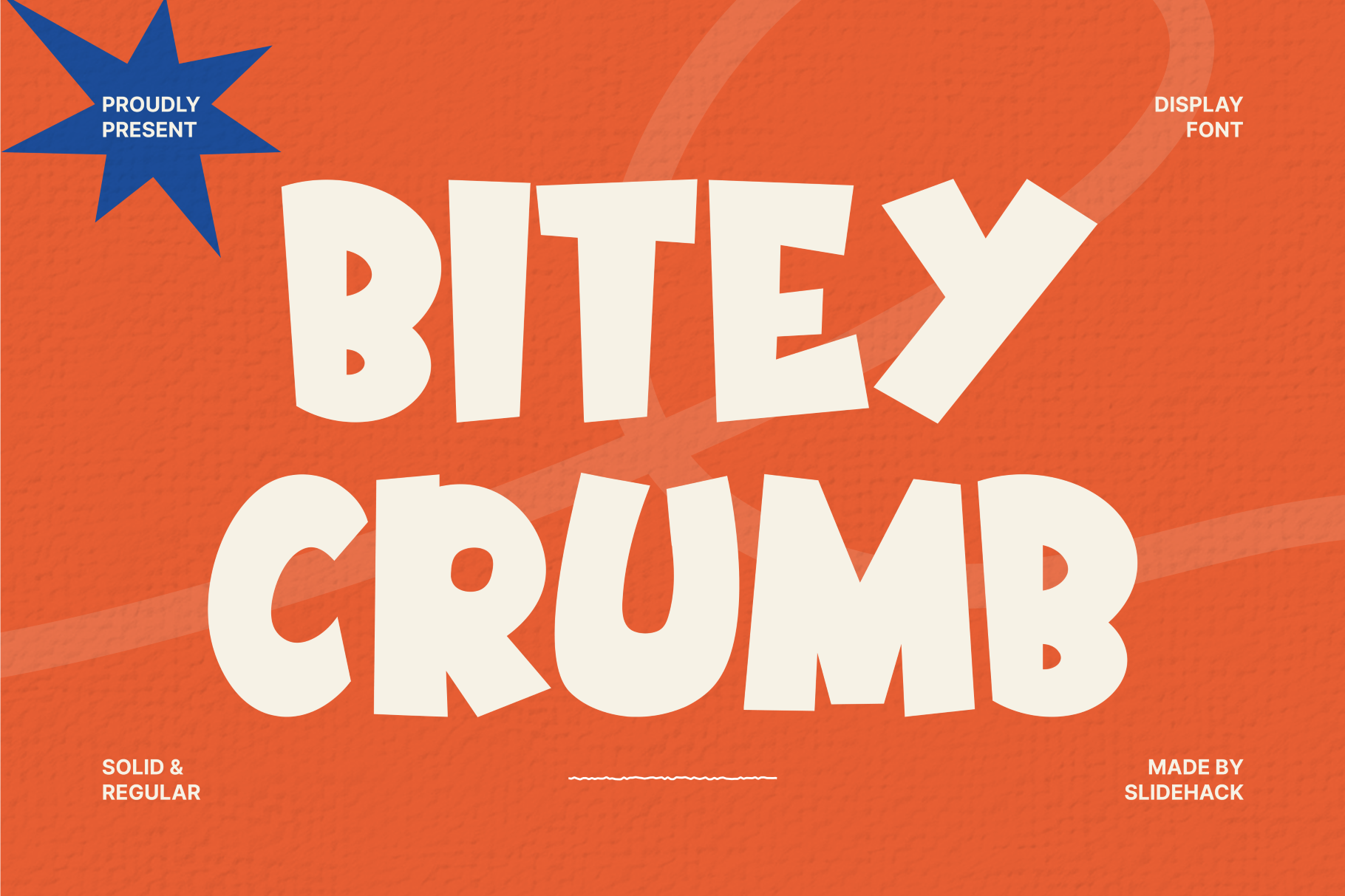
Bitey Crumb - Bold chunky Font
Bitey Crumb is a bold and playful display font designed to add fun, retro charm to your creative projects. Perfect for logos, posters, packaging, and kids’ designs, it comes with multilingual support and punctuation. This chunky and quirky font brings joyful energy to any modern or vintage layout.